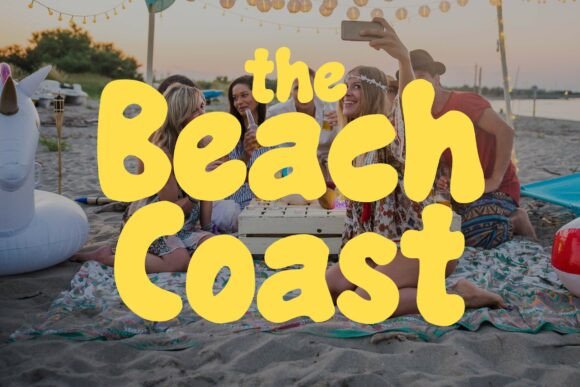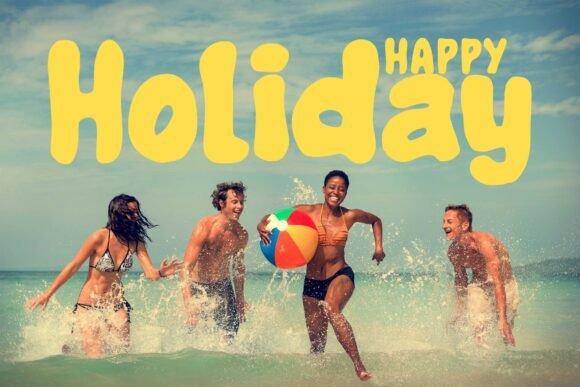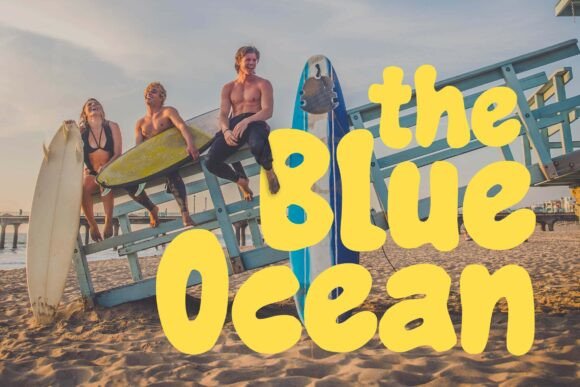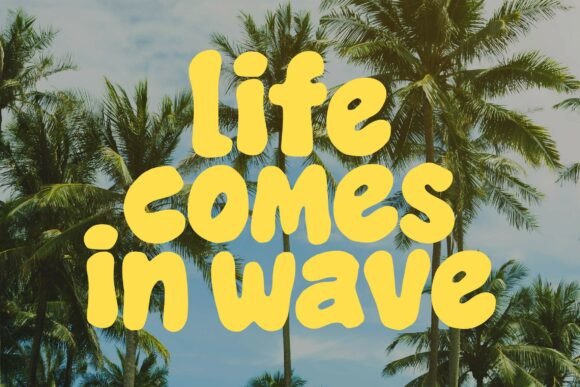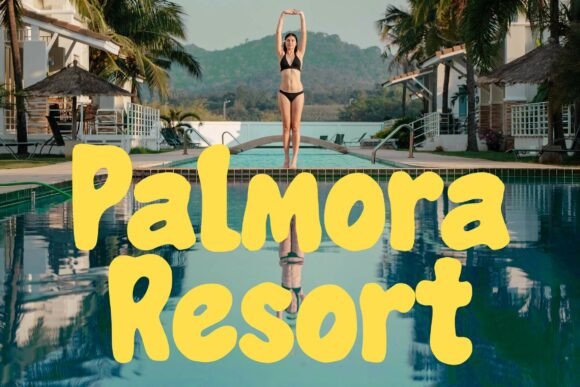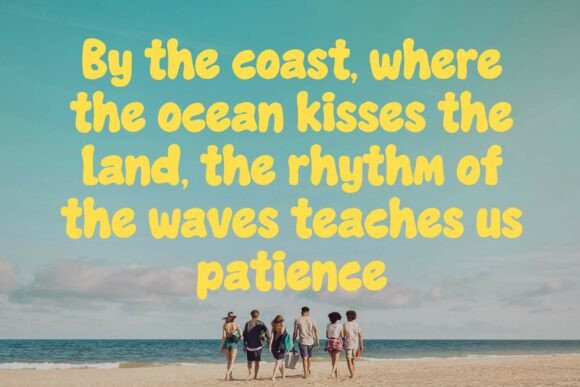
Cycha Cockie Font: Elevate Your Designs with a Bold and Playful Touch
Are you looking for a font that can add a stylish and personal touch to your professional branding projects? Look no further than Cycha Cockie, a bold handwritten display font designed to make your designs stand out. With its distinctive and expressive letterforms, Cycha Cockie is perfect for creating impactful and memorable designs that capture the attention of your audience.
What Makes Cycha Cockie Special?
Cycha Cockie is a carefully crafted font that boasts a unique and playful style, making it ideal for a wide range of design applications. Its bold yet elegant letterforms are perfect for creating stunning logotypes, watermarks, posters, promotions, product packaging, and more. Whether you’re a designer, crafter, or entrepreneur, Cycha Cockie is the perfect addition to your font collection.
Key Features of Cycha Cockie Font
- Bold and Playful Style: Cycha Cockie features a bold yet playful style that adds a touch of personality to any design project.
- Handwritten Display Font: This font is designed to bring a human touch to your designs, making them more relatable and engaging.
- Complete Set of Characters: Cycha Cockie includes a complete set of unique uppercase and lowercase letters, numerals, and punctuation, offering versatility for a wide range of design applications.
Cycha Cockie is a versatile font that can be used for a variety of design projects, including:
- Logotypes: Create a lasting impression with a custom logotype that showcases your brand’s personality.
- Watermarks: Add a touch of elegance to your designs with a custom watermark that features your brand’s name or logo.
- Posters: Create eye-catching posters that grab the attention of your audience with Cycha Cockie’s bold and playful style.
- Promotions: Make your promotions stand out with a custom design that features Cycha Cockie’s unique and expressive letterforms.
- Product Packaging: Add a touch of personality to your product packaging with a custom design that features Cycha Cockie.
Why Choose Cycha Cockie?
With so many fonts available, why choose Cycha Cockie? Here are just a few reasons why this font stands out:
- Unique and Expressive Letterforms: Cycha Cockie features a distinctive and expressive style that sets it apart from other fonts.
- Easy to Read and Recognize: Despite its bold and playful style, Cycha Cockie is easy to read and recognize, making it perfect for designs that need to communicate a message quickly and effectively.
Get Inspired with Cycha Cockie
In conclusion, Cycha Cockie is a bold handwritten display font that is perfect for designers and crafters looking to add a stylish and personal touch to their professional branding projects. With its unique and expressive letterforms, versatile compatibility, and easy-to-read style, Cycha Cockie is the perfect addition to any font collection. So why wait? Download Cycha Cockie today and start creating impactful and memorable designs that capture the attention of your audience.